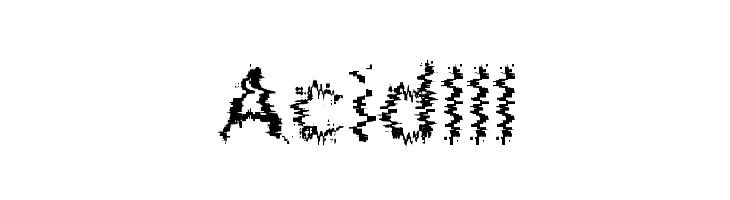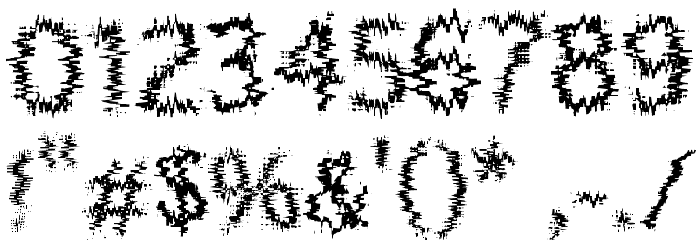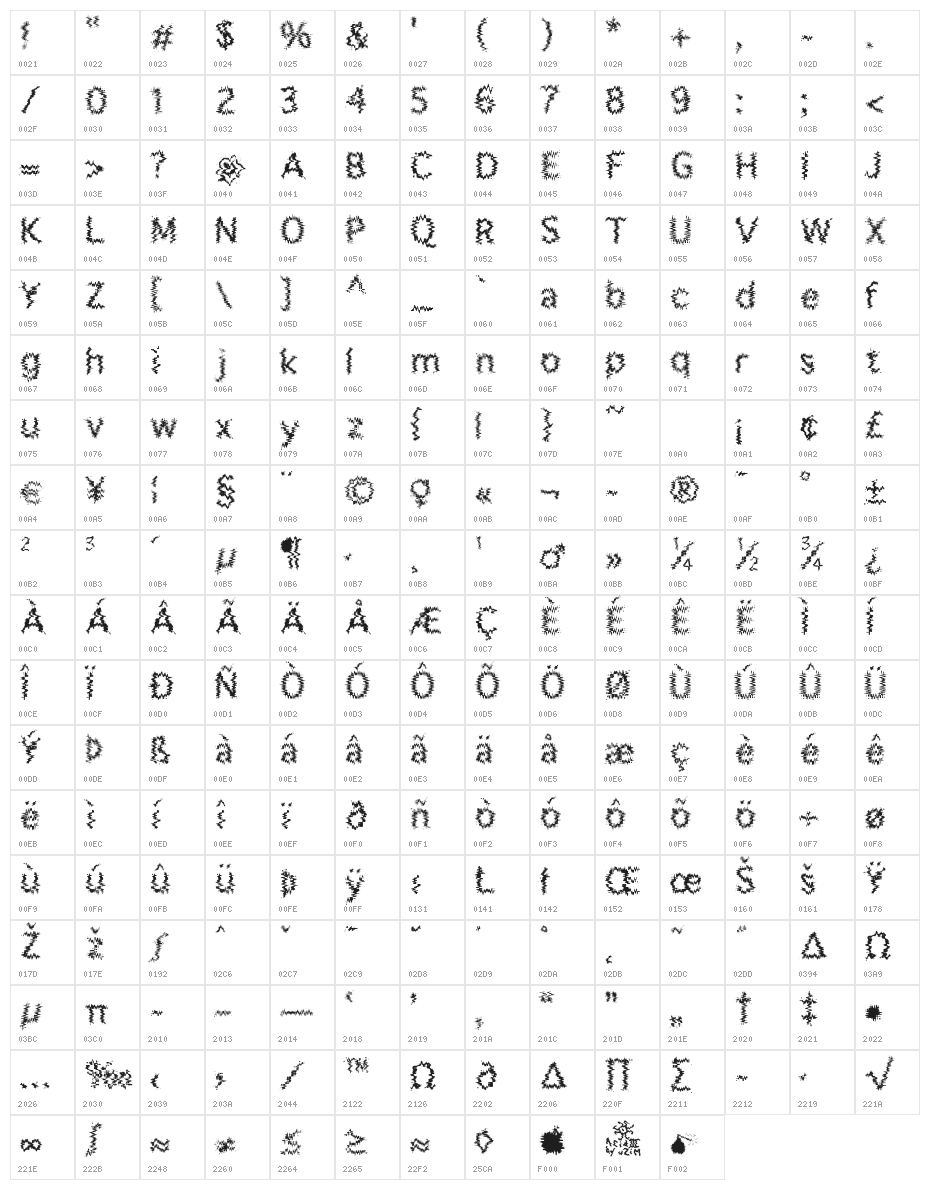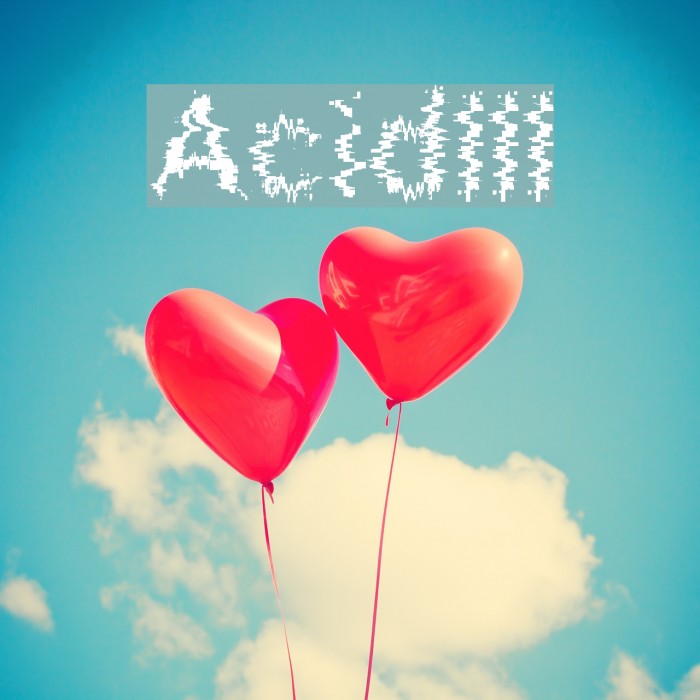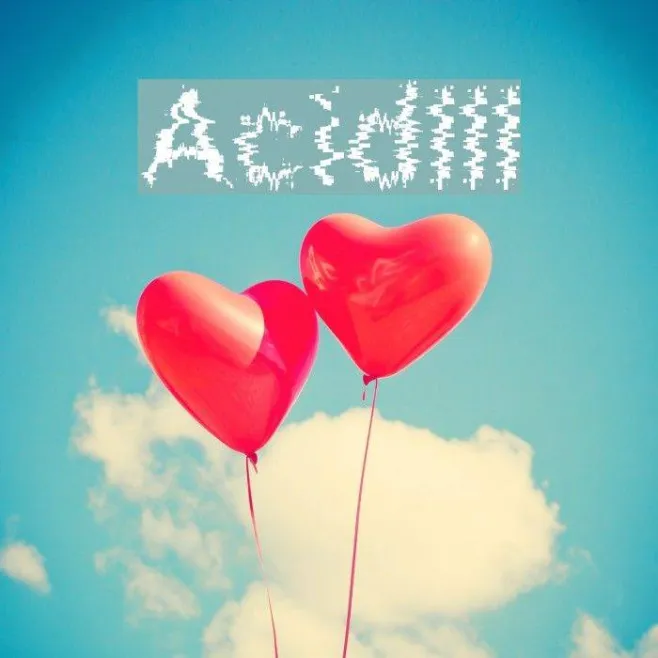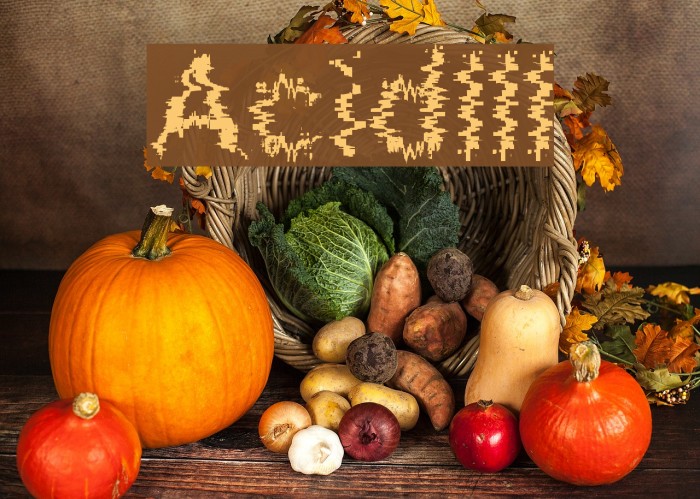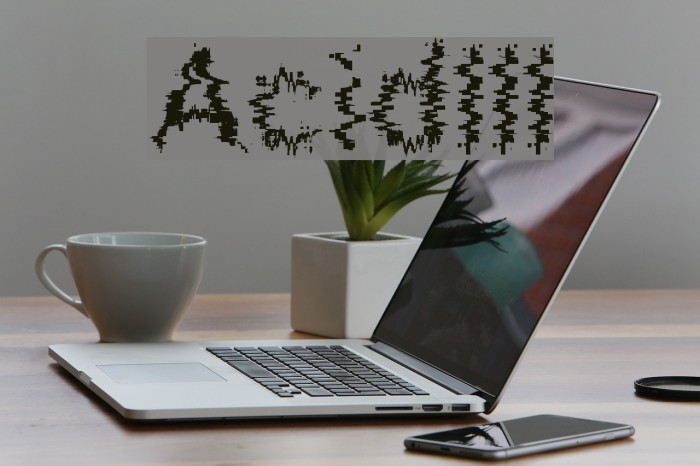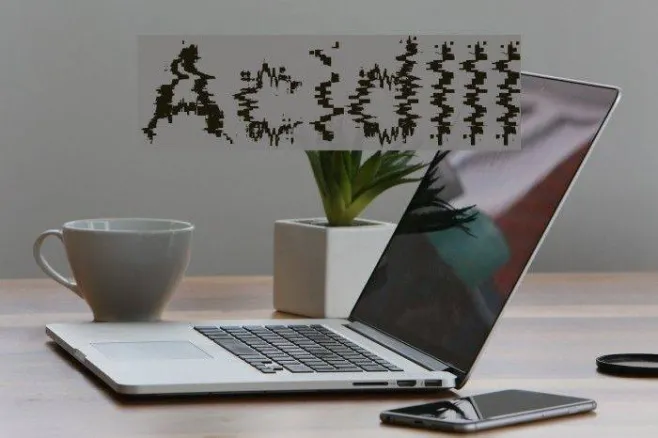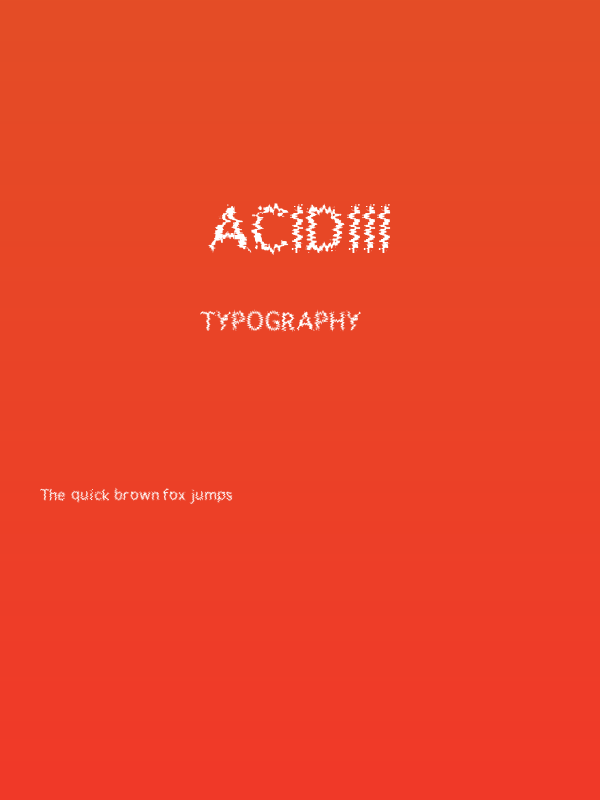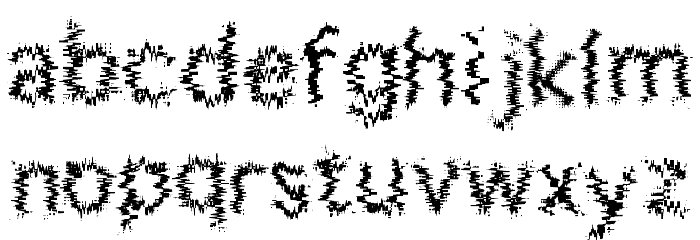
AcidIII Font
AcidIII Description
This font features a highly distinctive and chaotic design, characterized by jagged, irregular edges that give it a dynamic and energetic appearance. The letters appear as if they are vibrating or distorted, creating a sense of movement and intensity. This style is reminiscent of grunge or punk aesthetics, making it ideal for projects that require a bold, unconventional look. The uppercase and lowercase letters maintain a consistent level of distortion, ensuring uniformity across the text. Numbers and special characters are similarly styled, providing a cohesive overall appearance.
| Use Case | Headlines, Posters, Logos |
| Proposed Projects | Ideal for music album covers, event posters, or any design needing a rebellious, edgy vibe. |